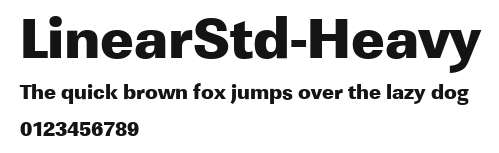
LinearStd-Heavy Preview
• Font Name: LinearStd-Heavy
• Font ID: SoftMaker Software GmbH LinearStd-Heavy-Regular
• Full Font Name: LinearStd-Heavy-Regular
• Version: Version 1.0 05-10-2002
• PostScript Name: LinearStdHeavy
• Character Count: 304
• Designer: SoftMaker Software GmbH
• Manufacturer: SoftMaker Software GmbH
About LinearStd-Heavy.ttf
LinearStd-Heavy.ttf is a modern, elegant sans-serif font designed for ultimate readability and visual harmony. Perfect for branding, headlines, web design, and print materials.